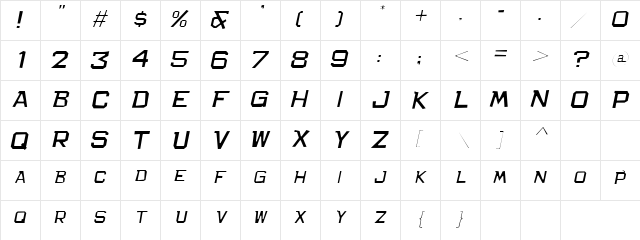
Bachelor Pad Lite JL Italic
Design Context for Bachelor Pad Lite JL Typeface
Bachelor Pad Lite JL is a composed and adaptable typeface that performs quietly and consistently across a wide range of design contexts. The dynamic lean of this cut emphasises speed and emphasis in any layout.
Pro Tip: Use Bachelor Pad Lite JL for emphasis, pull quotes, and subheadings where its slanted energy can add rhythm to the layout.